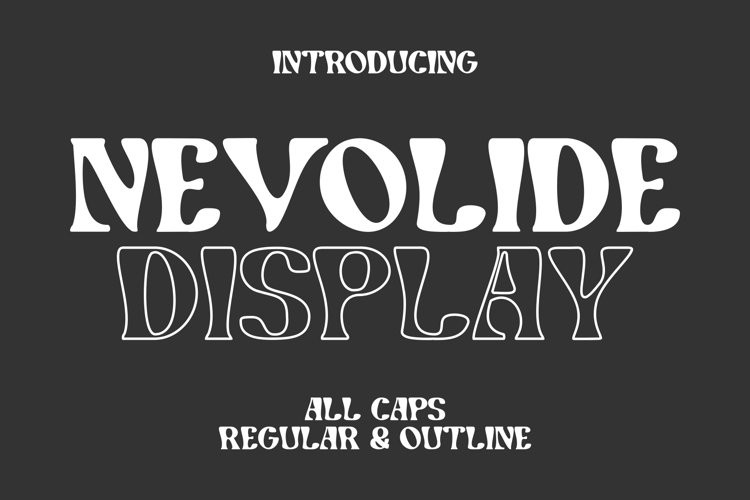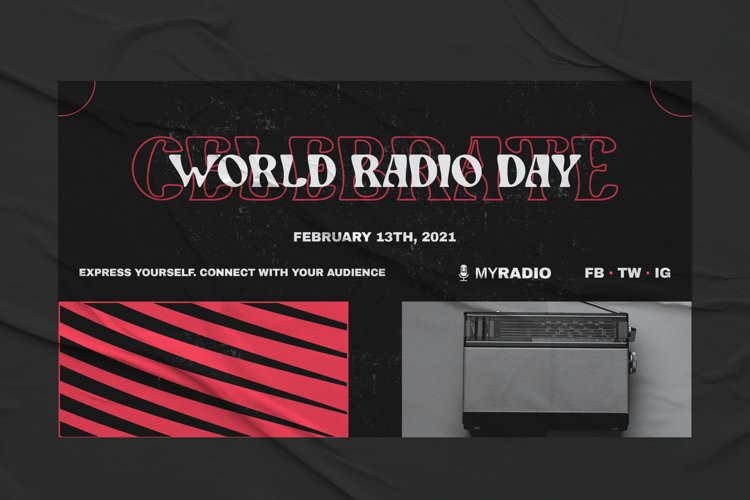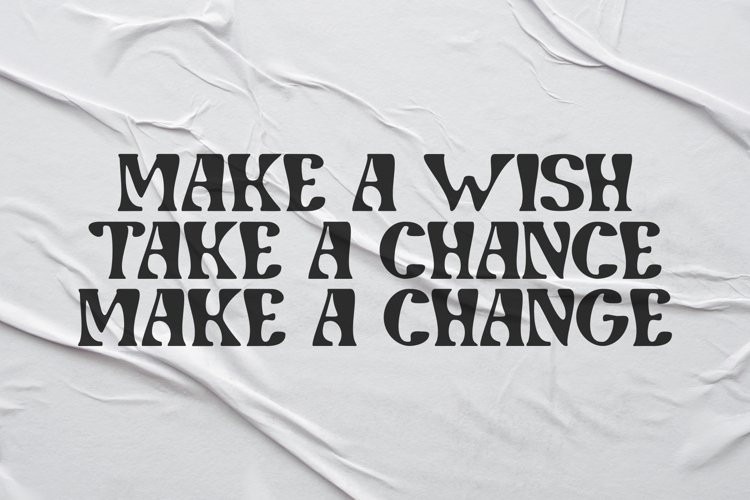
Nevolide Font
Nevolide FontNevolide is a Display font. It has an elegant and playful look that can be used for logos, branding, invitations, stationery, wedding designs, social media posts, and so much more.